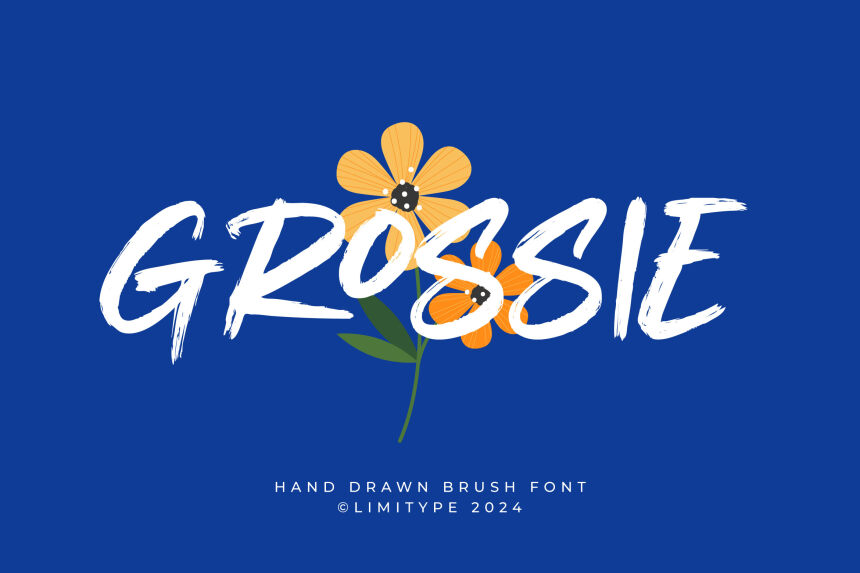
Grossie DEMO Regular
Grossie by Limitype is a captivating brush font that exudes a sense of effortless elegance. Its fluid, organic strokes convey a warm, handwritten aesthetic, lending a distinctive charm to any design. The font's dynamic, expressive lines capture a vibrant, energetic essence, inviting the viewer to engage with the content on a deeper level. Grossie's versatility shines through its ability to seamlessly transition between bold, attention-grabbing headlines and refined, delicate body text.
This versatile font lends itself well to a diverse range of applications, from eye-catching branding and packaging designs to evocative editorial layouts and dynamic digital interfaces. Grossie's distinctive personality makes it an excellent choice for projects that aim to evoke a sense of authenticity, creativity, and individuality, allowing designers to craft memorable, impactful visual narratives.
Grossie by Limitype is a captivating brush font that exudes a sense of effortless elegance. Its fluid, organic strokes convey a warm, handwritten aesthetic, lending a distinctive charm to any design. The font's dynamic, expressive lines capture a vibrant, energetic essence, inviting the viewer to engage with the content on a deeper level. Grossie's versatility shines through its ability to seamlessly transition between bold, attention-grabbing headlines and refined, delicate body text.
This versatile font lends itself well to a diverse range of applications, from eye-catching branding and packaging designs to evocative editorial layouts and dynamic digital interfaces. Grossie's distinctive personality makes it an excellent choice for projects that aim to evoke a sense of authenticity, creativity, and individuality, allowing designers to craft memorable, impactful visual narratives.